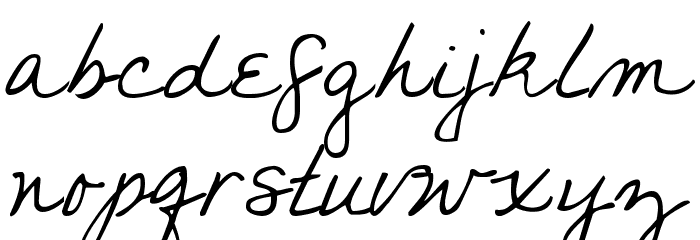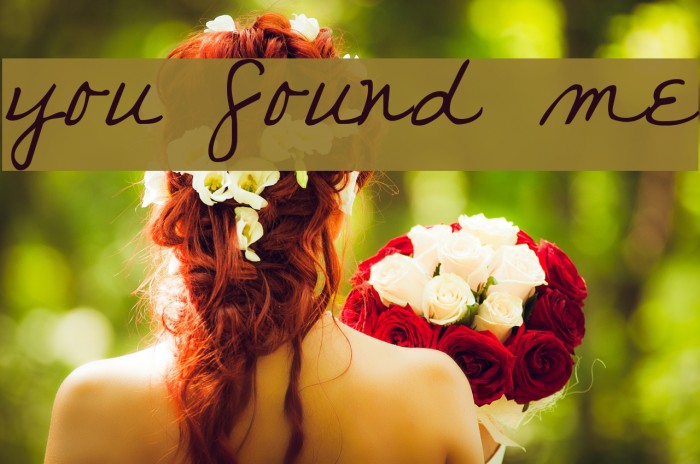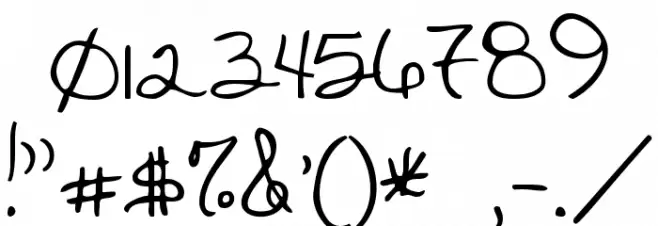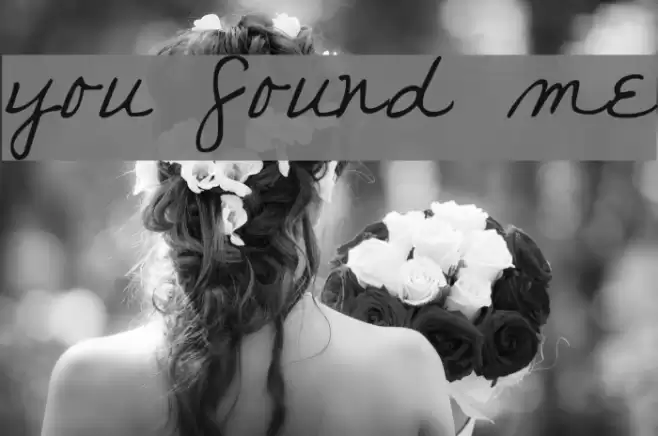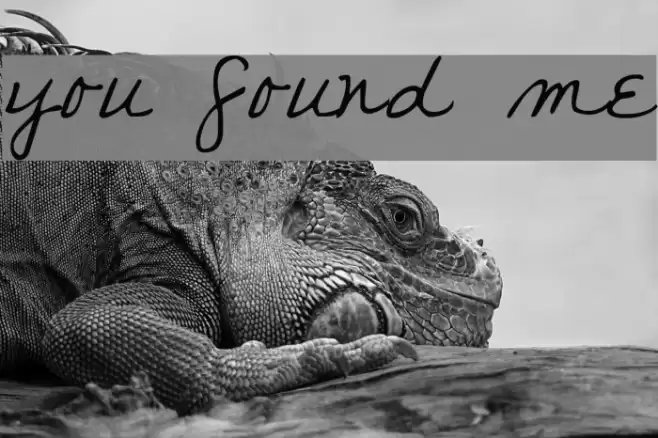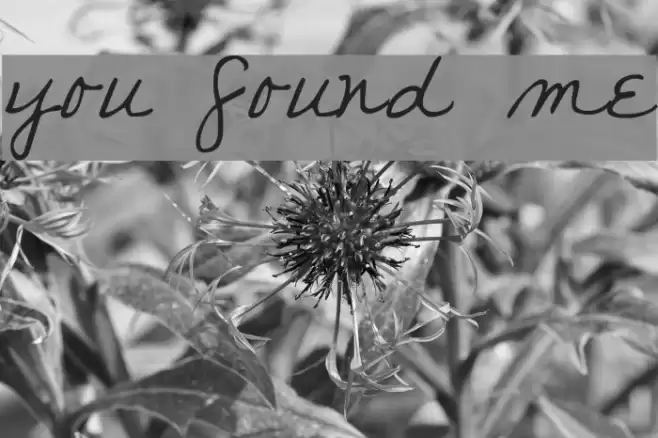
you found me Font
This font features a flowing, cursive style that mimics natural handwriting with a casual and elegant flair. The letters are interconnected, creating a seamless and fluid appearance. The uppercase letters maintain a consistent height, while the lowercase letters exhibit a slight slant, enhancing the handwritten effect. The numerals are distinct yet harmonize well with the alphabet, maintaining the same fluidity. Special characters are crafted with the same attention to detail, ensuring they blend seamlessly with the overall style. The strokes are smooth and consistent, with a medium contrast that adds to the readability without compromising the aesthetic appeal.
A fluid, cursive font with a natural handwritten style.
- Proposed Projects: Ideal for personal invitations, greeting cards, branding projects, and any design that requires a personal touch.
- Category: Script
- Overall Style: Handwritten
- Use Case: Logos, Invitations, Greeting Cards